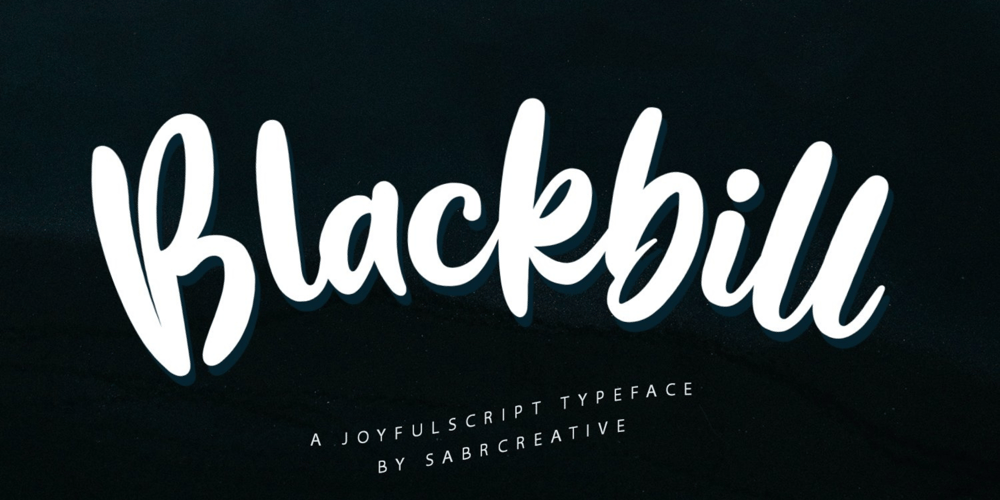
Blackbill Font Family was designed by Irpan Maulana and published by Sabrcreative. Blackbill contains 1 styles and family package options. Introducing Blackbill Script, an elegant and expressive script font that effortlessly captures the beauty of handwritten calligraphy. With its fluid strokes, delicate curves, and impeccable letterforms, Blackbill Script adds a touch of sophistication and charm to your designs. Whether you’re creating wedding invitations, logos, packaging, or branding materials, this versatile script font will make your text stand out with its unique personality.The Uppercase and lowercase letters of Blackbill Script offer a seamless flow and harmonious balance, allowing you to create visually appealing typography. From romantic and graceful to bold and expressive, this font offers a wide range of styles to suit different design needs. With its inclusion of numbers and punctuations, Blackbill Script ensures that your message is conveyed with clarity and professionalism.With multilingual support, Blackbill Script enables you to reach a global audience and communicate in various languages. It ensures that your designs can resonate with diverse cultures and create an inclusive experience for your viewers.Blackbill Script features PUA encoding, providing easy access to a collection of alternate characters and ligatures. These decorative elements and letter variations add versatility and creative flair to your designs, allowing you to customize and personalize your text for a unique look.